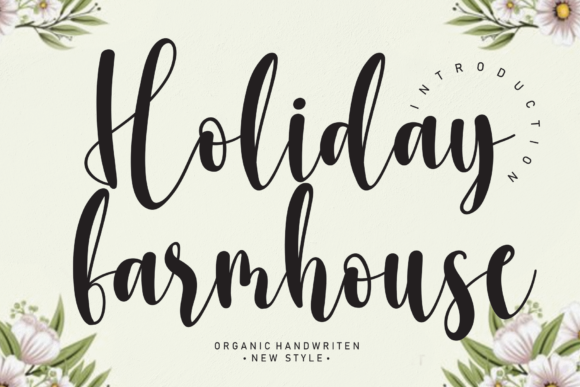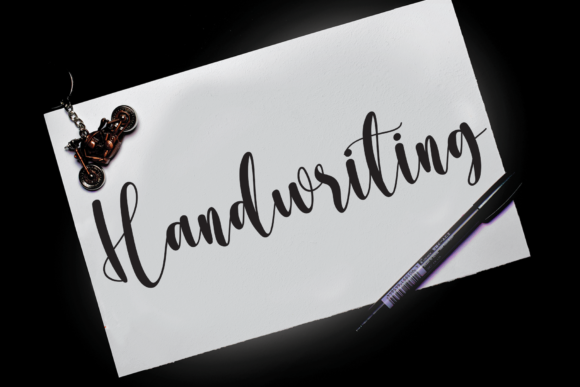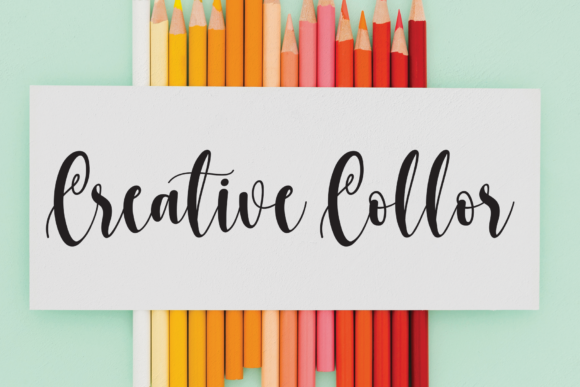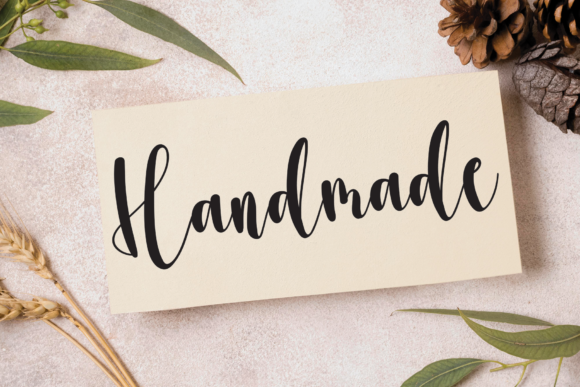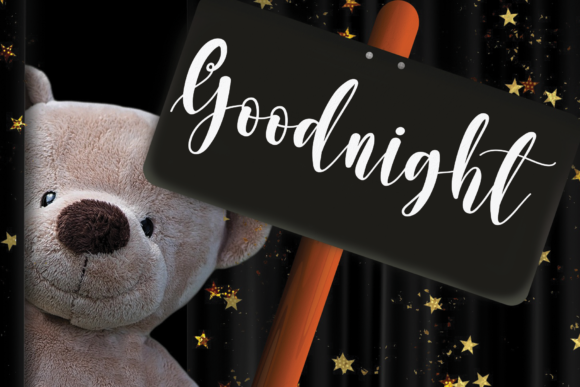
As I sat at my desk, staring at a blank page, I knew exactly what I needed to bring my design to life – a font that exuded warmth and character. And then, it hit me – the perfect choice was the Holiday Farmhouse Font. With its unique, handwritten style, this font is a game-changer for designers looking to create eye-catching logos, branding, and quotes.
Whether you’re working on a holiday-themed project or simply need a font that adds a touch of personality to your design, Holiday Farmhouse Font is the perfect choice. Its beautiful, handwritten touch makes every letter come alive, giving your design a sense of depth and emotion that’s hard to find with more generic fonts. As a designer, you know how valuable it is to have a font that truly stands out – and that’s exactly what Holiday Farmhouse Font delivers.
Holiday Farmhouse Font Key Features
- Font Family: Holiday Farmhouse Font is a unique, hand-drawn font designed to evoke a sense of rustic charm and nostalgia.
- Character Count: The font includes over 1,000 characters, including uppercase and lowercase letters, numbers, punctuation marks, and special characters.
- Unique Characteristics: Holiday Farmhouse Font features intricate details, such as hand-drawn flourishes and ornaments, making it perfect for creating a vintage or distressed look.
Review of Holiday Farmhouse Font
Overall, I’d say the Holiday Farmhouse Font is a delightful addition to any design project that needs a rustic touch. ✨ The font’s unique blend of elegance and playfulness makes it perfect for creating a warm and inviting atmosphere.
- ✨ Beautifully crafted letterforms that evoke a sense of tradition and heritage.
- ✨ Suitable for a wide range of applications, from wedding invitations to restaurant menus.
- ✨ Excellent for pairing with vintage or distressed textures to create a cohesive look.
- ⚠️ Some users may find the font’s irregularities and imperfections distracting, especially in smaller text sizes.
- ⚠️ The font may not be suitable for projects that require a highly legible or technical font.
Overall, I’d give the Holiday Farmhouse Font 4 out of 5 stars. It’s a wonderful choice for designers looking to add a touch of whimsy and charm to their projects. However, it’s essential to consider the font’s limitations and ensure it’s used in a way that complements the overall design aesthetic.
Holiday Farmhouse Font is perfect for:
– Creating rustic and welcoming invitations and menus.
– Designing custom graphics, logos, and other designs that require a touch of rustic elegance.
– Crafting engaging presentations and documents that evoke a sense of warmth and hospitality.
Alternatives to Holiday Farmhouse Font
The Holiday Farmhouse Font is a rustic, handwritten font used for various design purposes, especially for creating a cozy and welcoming atmosphere. Here are some alternatives for designers:
The Great Vibes Font is a beautiful, handwritten font with a touch of elegance and sophistication. It is perfect for creating invitations, quotes, and other designs where a unique and stylish look is required. Compared to Holiday Farmhouse Font, Great Vibes Font has a more refined and polished appearance, making it suitable for more formal designs.
The Alex Brush Font is a elegant, handwritten font with a touch of sophistication and luxury. It is ideal for creating designs that require a sense of refinement and elegance, such as wedding invitations, luxury brands, and high-end products. Compared to Holiday Farmhouse Font, Alex Brush Font has a more polished and refined appearance, making it suitable for more upscale designs.
Q: What is the font’s Unicode coverage?
The Holiday Farmhouse Font has comprehensive Unicode coverage, including support for Latin, Greek, Cyrillic, and many other languages. This allows designers to use the font for multilingual projects and ensures that the font can display a wide range of characters and glyphs.